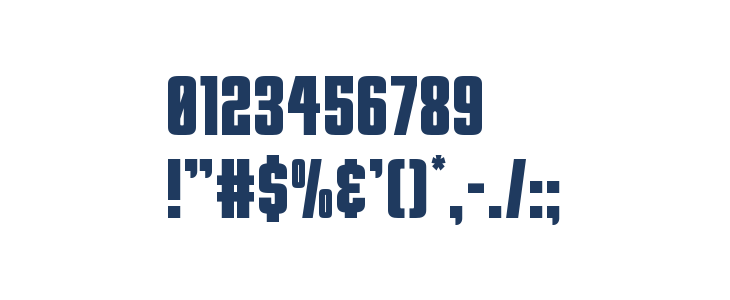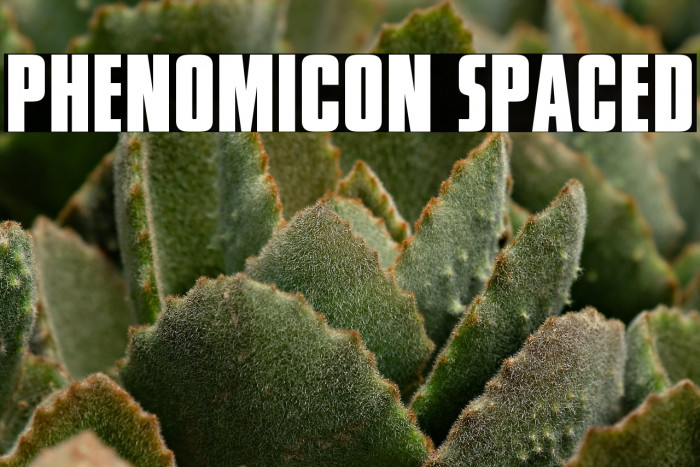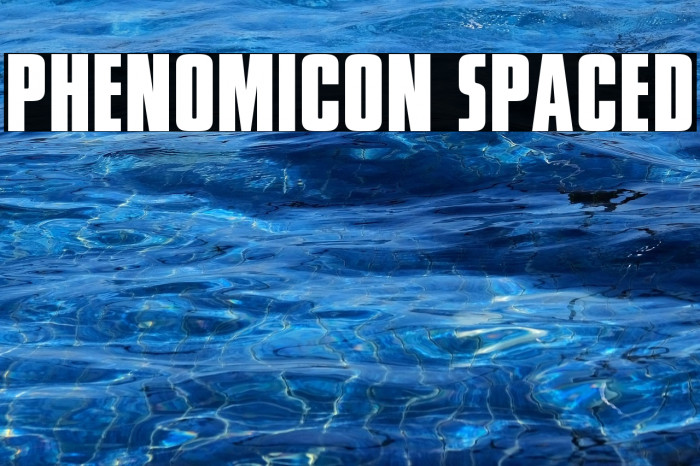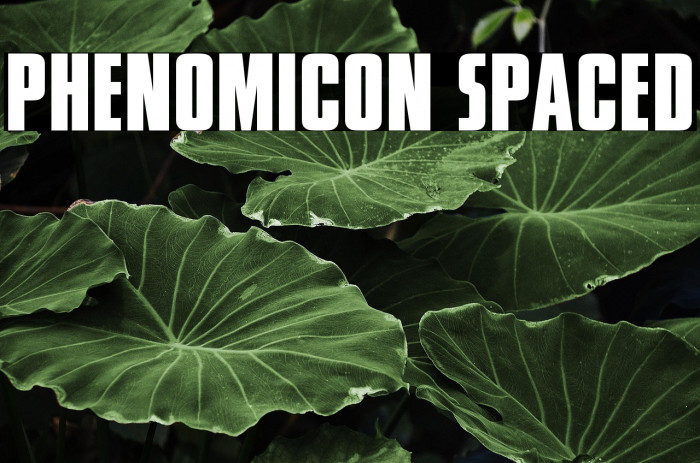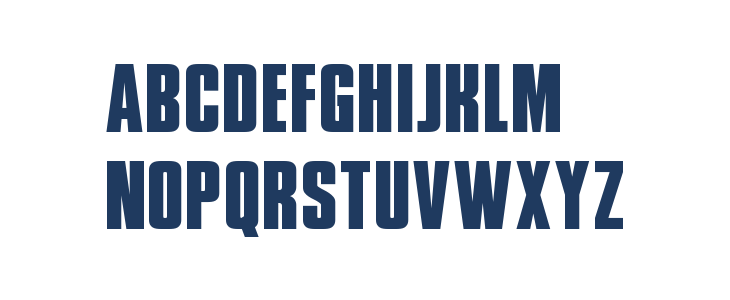
Phenomicon Spaced Font
Phenomicon Spaced Description
This font features a bold and impactful design with strong, thick strokes that convey a sense of power and authority. The characters are uniformly wide, creating a cohesive and balanced appearance. The uppercase letters are particularly striking, with a geometric precision that enhances readability. The numbers and special characters maintain the same boldness, ensuring consistency across all text elements. This font is ideal for making a statement, whether in headlines, posters, or branding materials. Its robust design ensures that it stands out in any context.
| Use Case | Headlines, Posters, Branding |
| Proposed Projects | Ideal for headlines, posters, branding materials, and any project requiring a strong visual impact. |